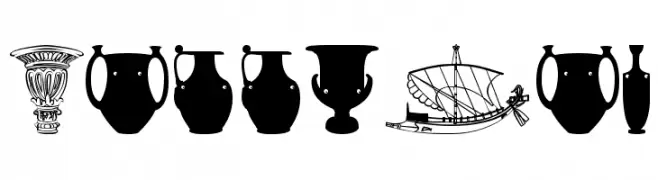
( Fonts by Rodrigo German - RASDESIGN )
A bold, sports-themed decorative font with illustrated icons and blocky numerals.
( Fonts by Manfred Klein - manfred-klein.ina-mar.com )
Ornamental dingbat font with Greek art motifs and classical illustrations.
( Fonts by Manfred Klein - manfred-klein.ina-mar.com )
Decorative font with Greek mythology illustrations for each character.